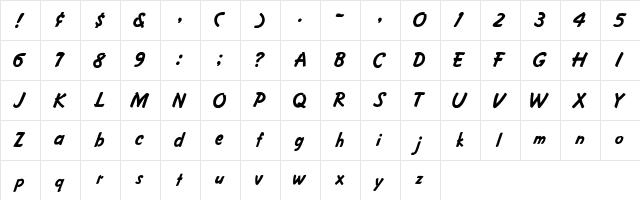
Cartoon-Normal Regular
Design Context for Cartoon-Normal Typeface
Cartoon-Normal has an approachable, lighthearted character — its loose, expressive forms are well-suited to children's content, casual branding, and fun-first design.
Font Pairing: Pairs well with a rounded or humanist sans for body copy, maintaining the friendly tone without relying on Cartoon-Normal to carry extended reading.
Pro Tip: Avoid using Cartoon-Normal for long passages of text — it works best for headlines, labels, and short calls to action.